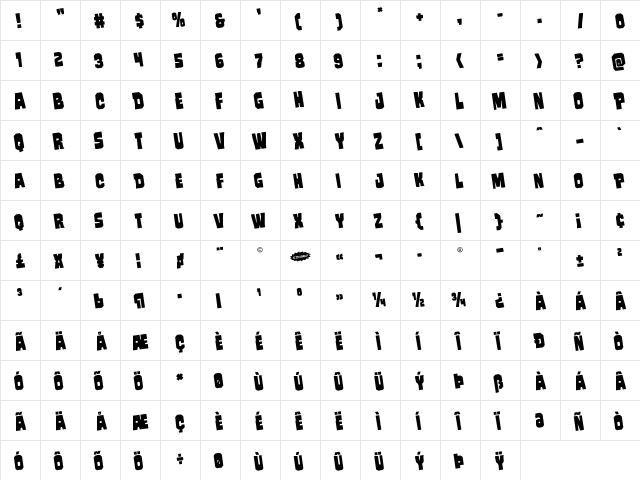
Mindless Brute Rotated Regular
Design Context for Mindless Brute Rotated Typeface
Mindless Brute Rotated is a composed and adaptable typeface that performs quietly and consistently across a wide range of design contexts.